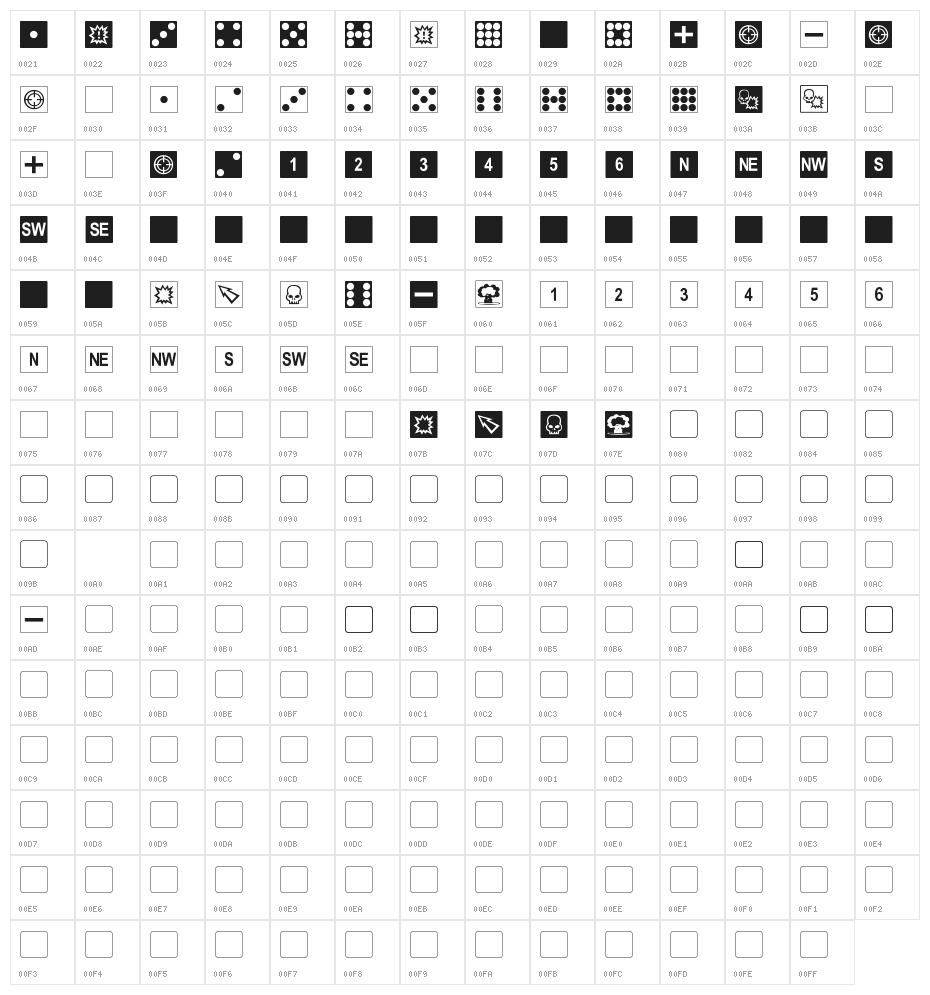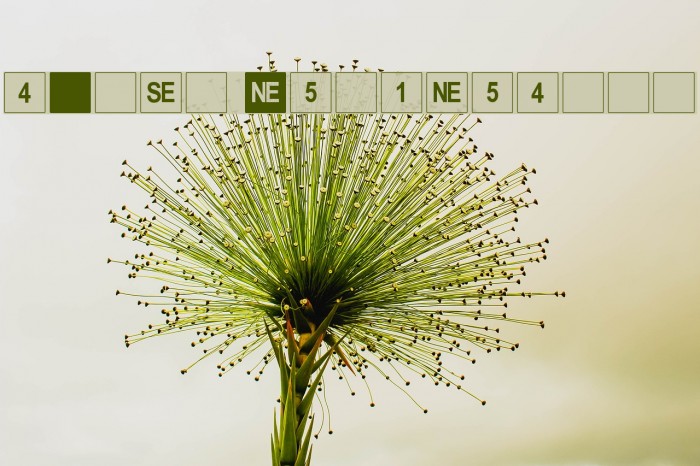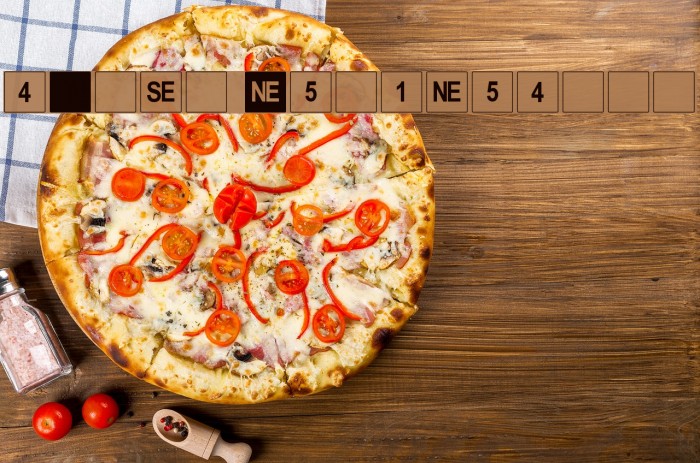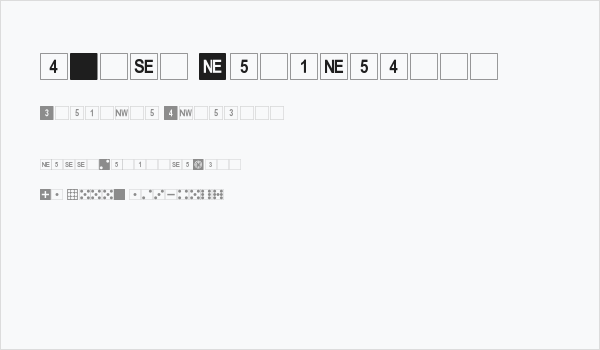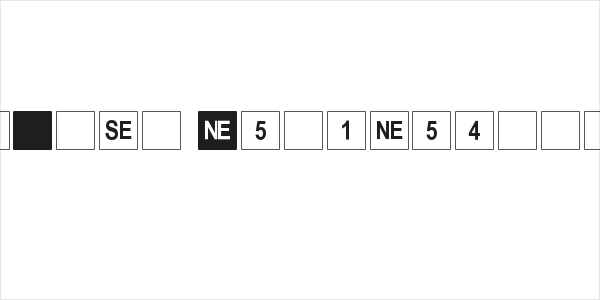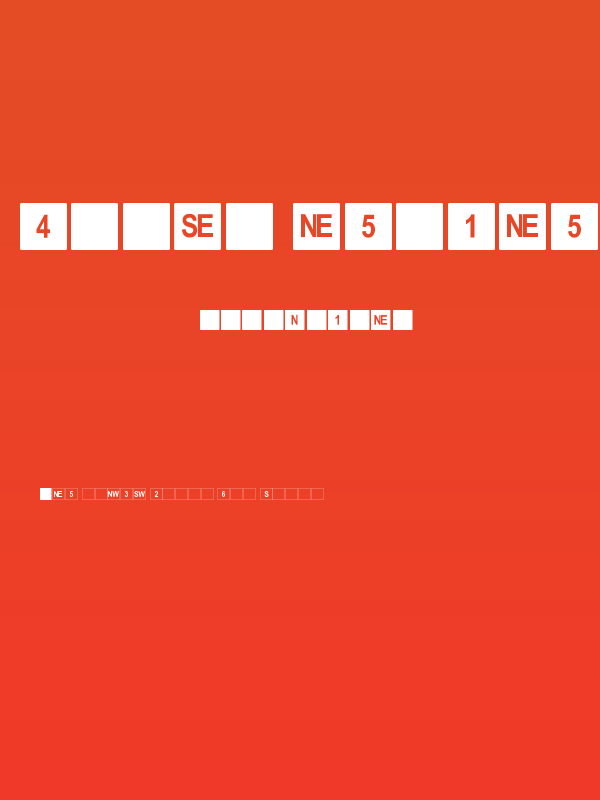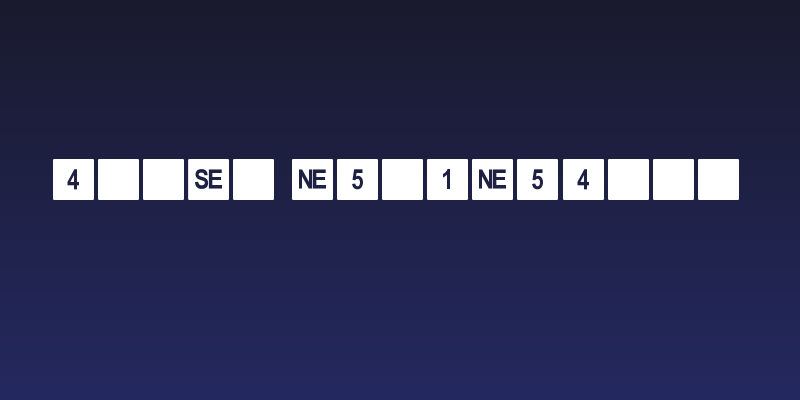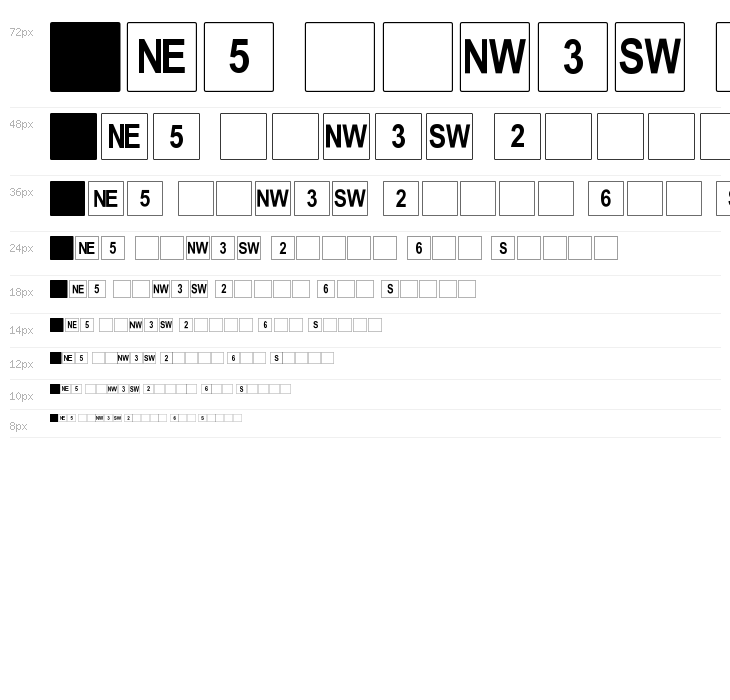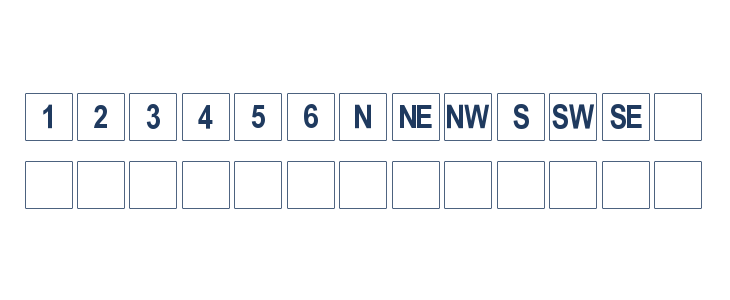
dPoly Hexahedron Font
dPoly Hexahedron Description
This is not a valid font. The image displays a series of symbols and numbers arranged in a grid format, resembling a dice or board game interface. It includes numbers, directional indicators, and various symbols that do not form a coherent typeface suitable for text representation.
| Overall Style | Functional |
| Use Case | Game design, Educational tools |
| Proposed Projects | This set could be used for board game design, educational tools, or interactive applications involving directional or numerical inputs. |